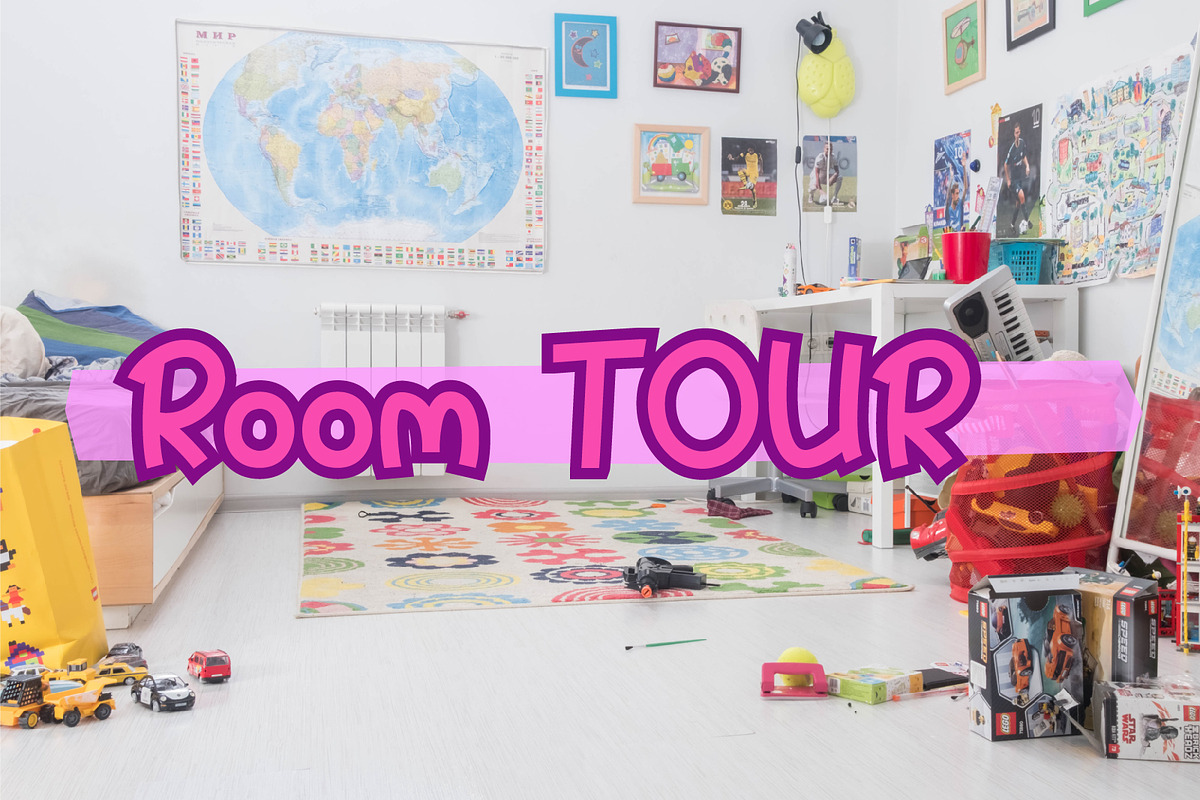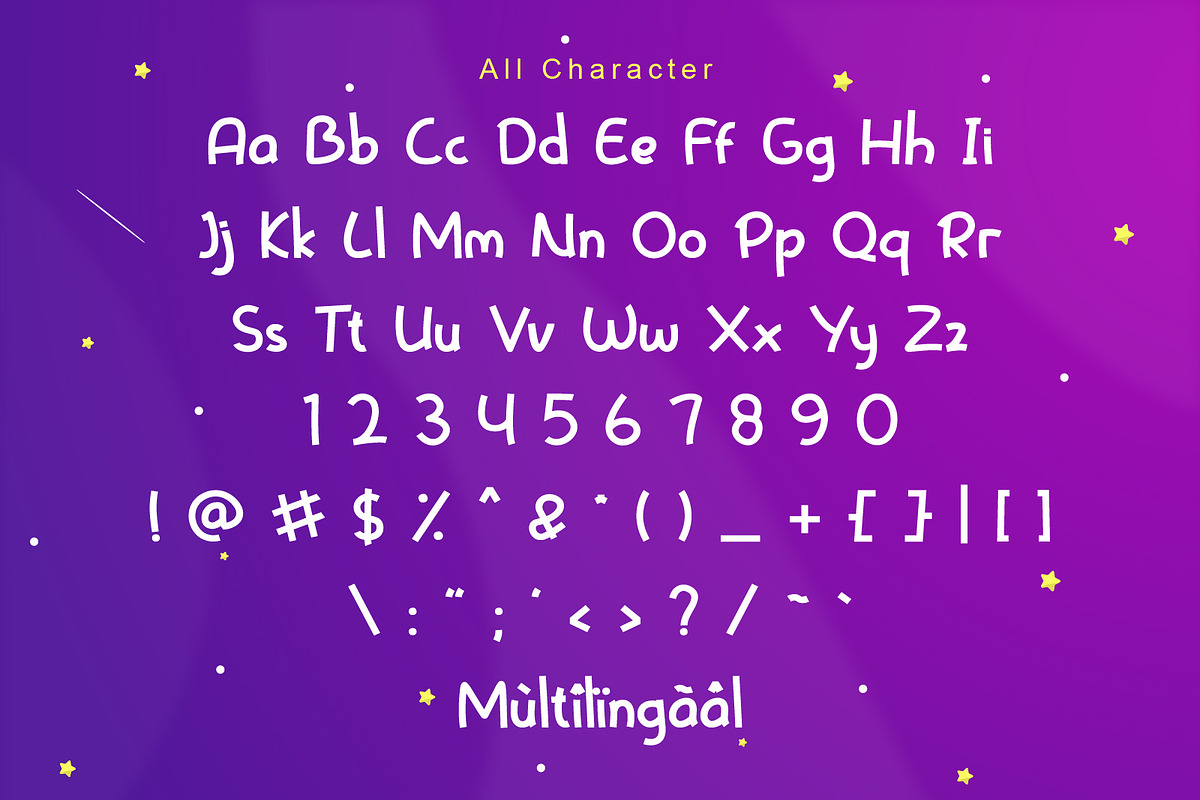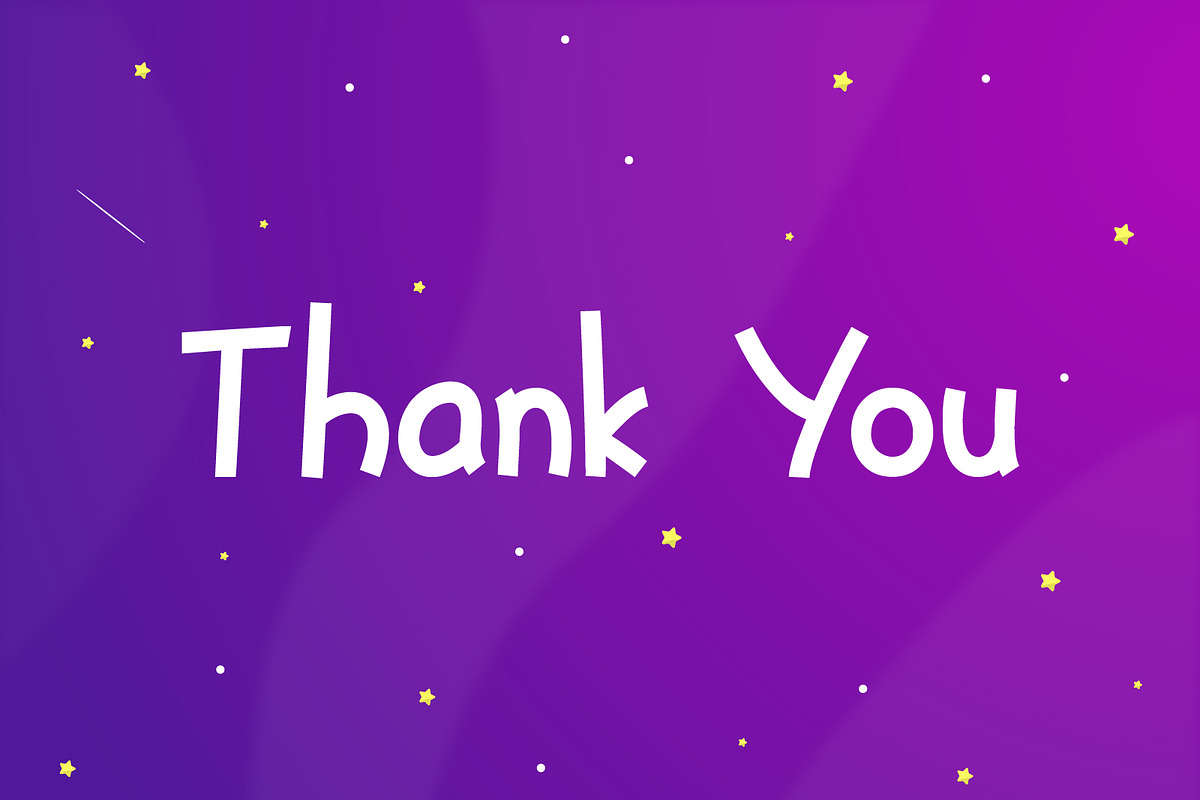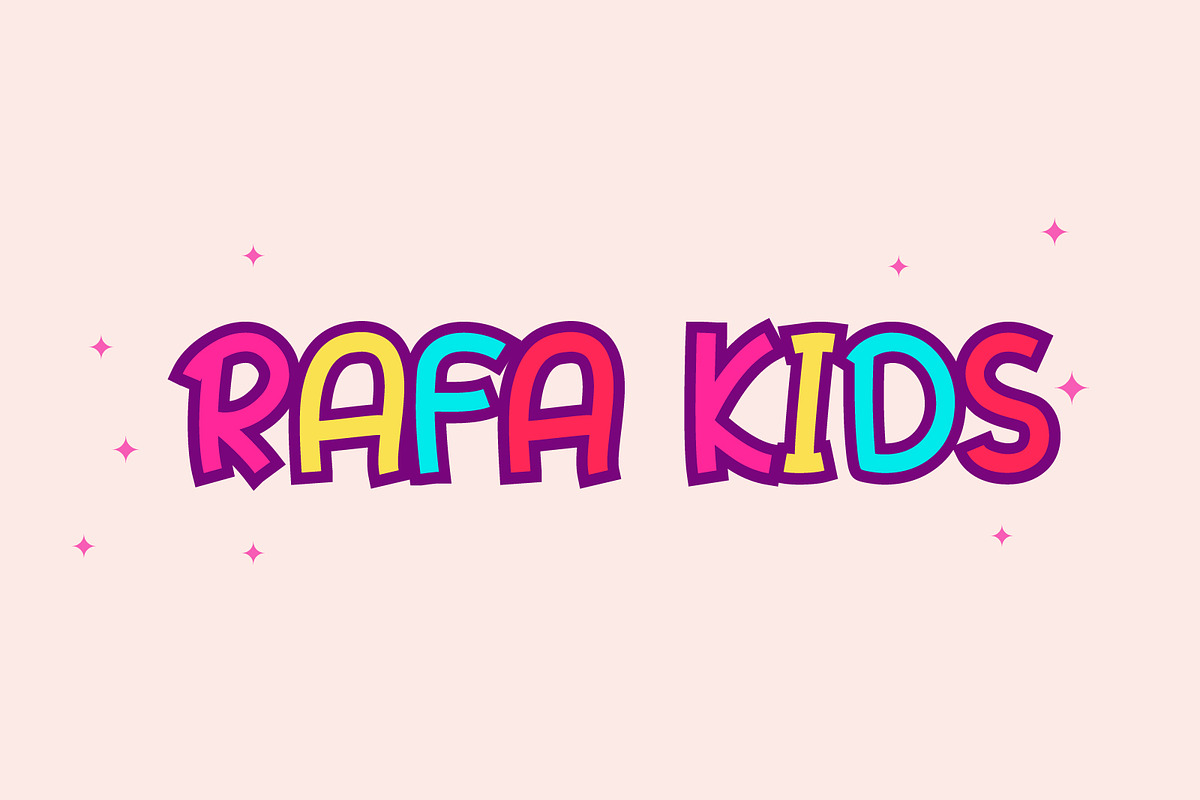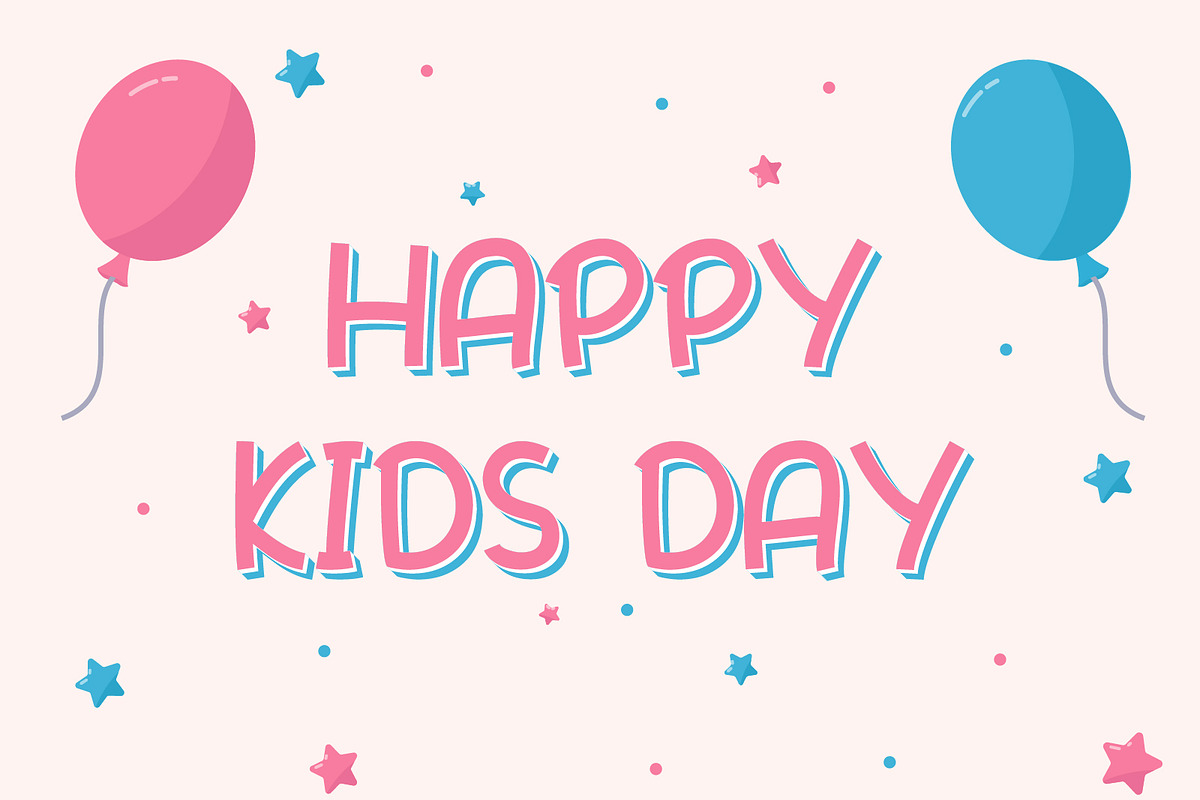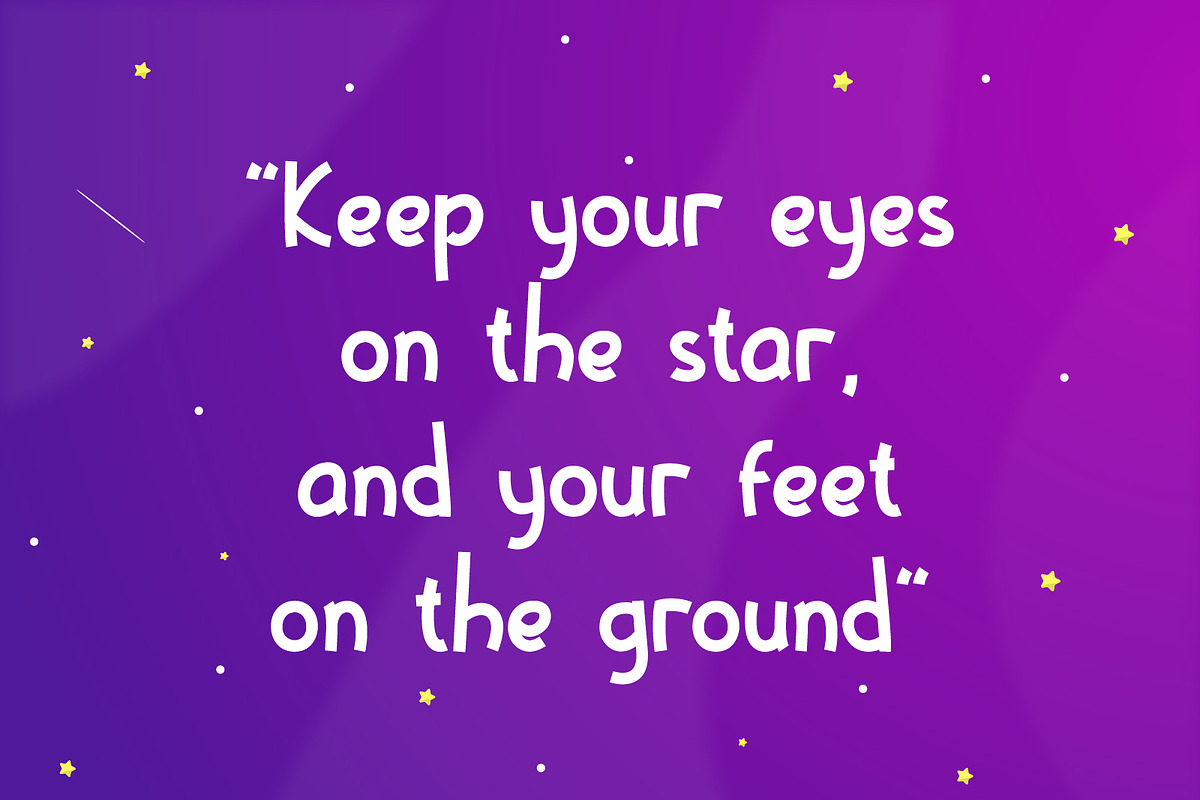
Rafa Kids
Rafa Kids is a cute and colorful display font. It embodies playfulness and authenticity and is the perfect choice for any children activity or school project.